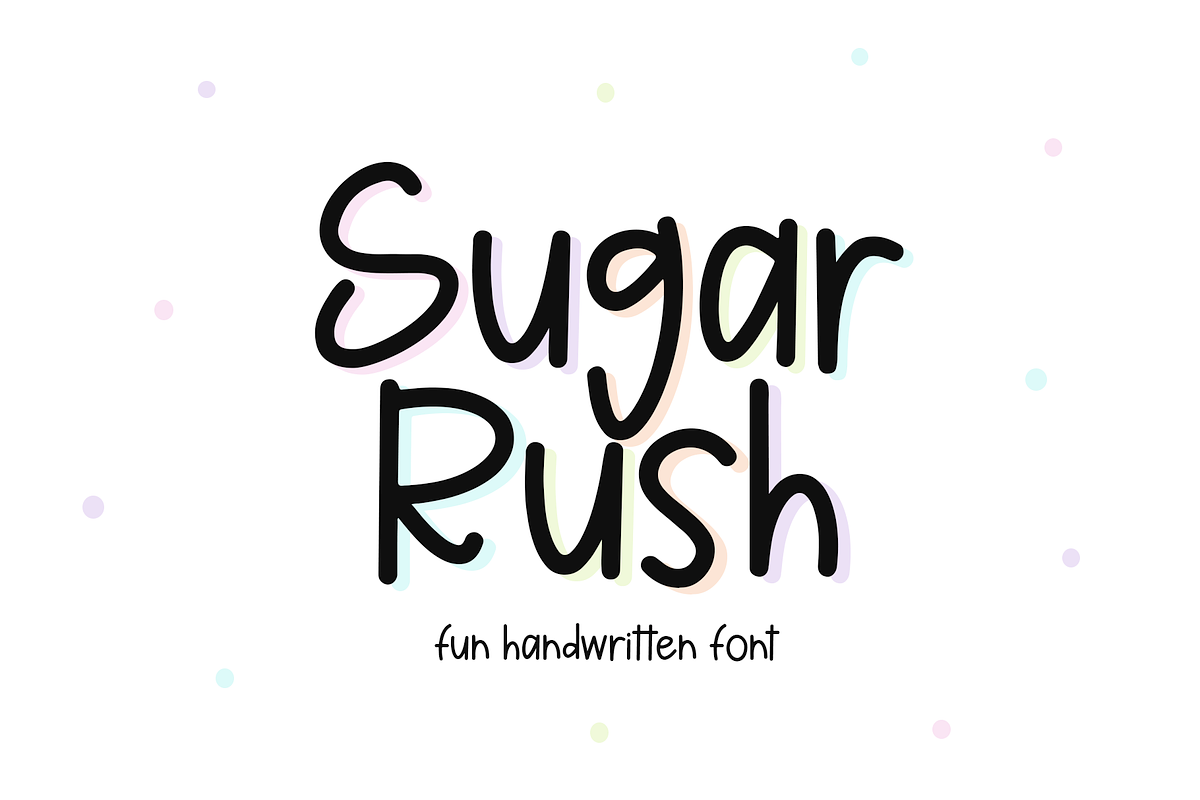
Sugar Rush | Fun Handwritten Font Free Download is a playful and energetic typeface bursting with charm and personality. Featuring bouncy baselines, rounded strokes, and a sweet, handwritten style, this font is perfect for kids’ designs, birthday invitations, candy packaging, playful branding, and cheerful social media graphics.
Designed to feel like joyful doodles straight from a notebook, Sugar Rush adds a sense of fun and creativity to any project. Its whimsical character makes it especially great for child-focused content, classroom materials, and colorful merch.
Brighten your designs with the delightful sweetness of Sugar Rush! 🍭✨